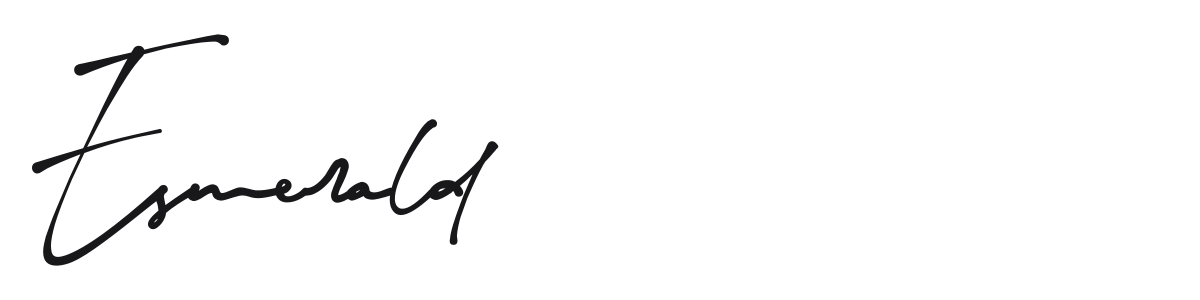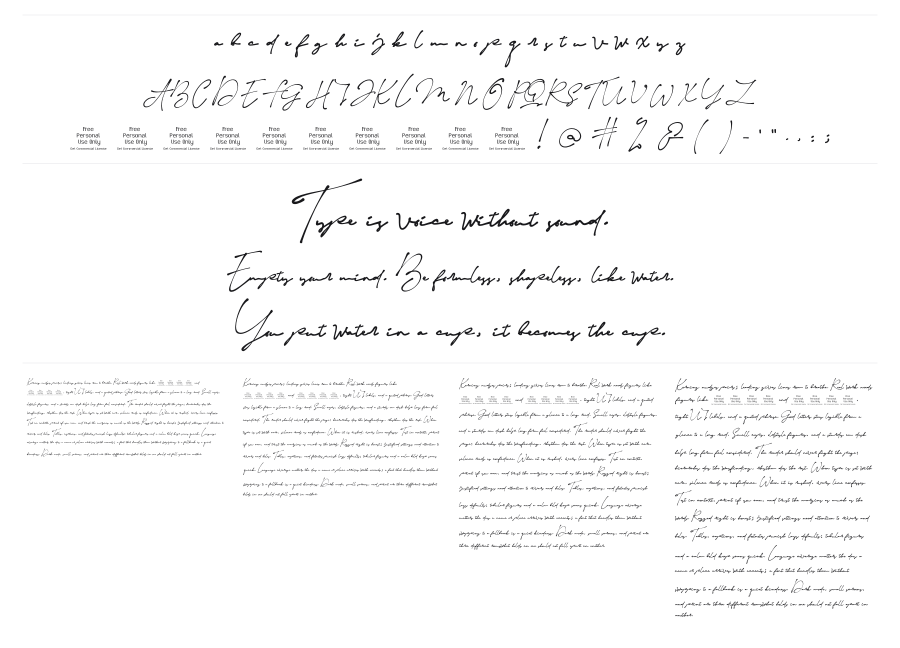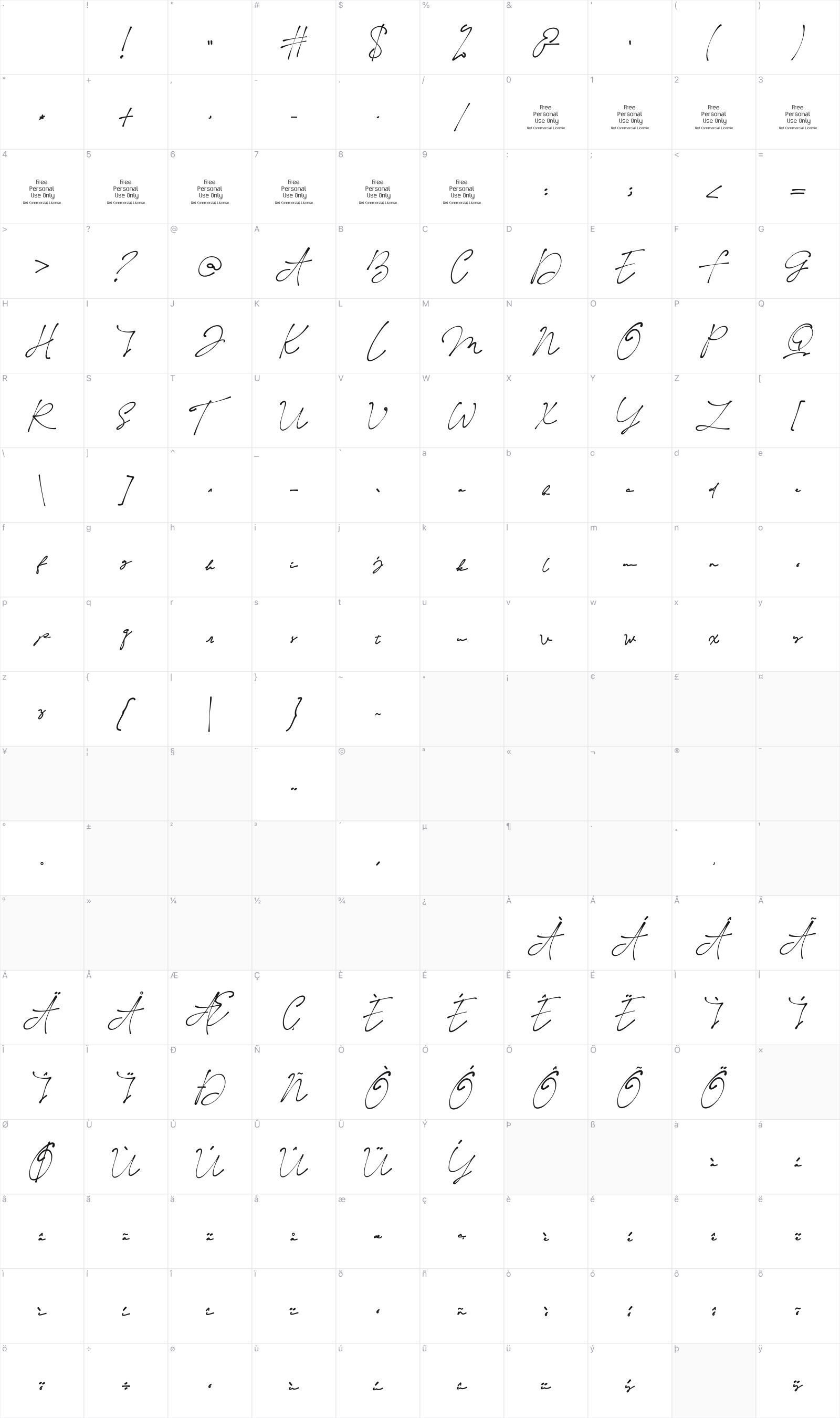
Esmerald
Esmerald is a loose, flowing casual script that captures the energy of real handwriting at speed. Its continuously connected strokes, drifting baseline, and subtle ink-pool details give it a tactile, lived-in authenticity that polished calligraphic scripts often lack. It works well for brand identities, packaging, and editorial headlines where a personal, artisan touch is the point.